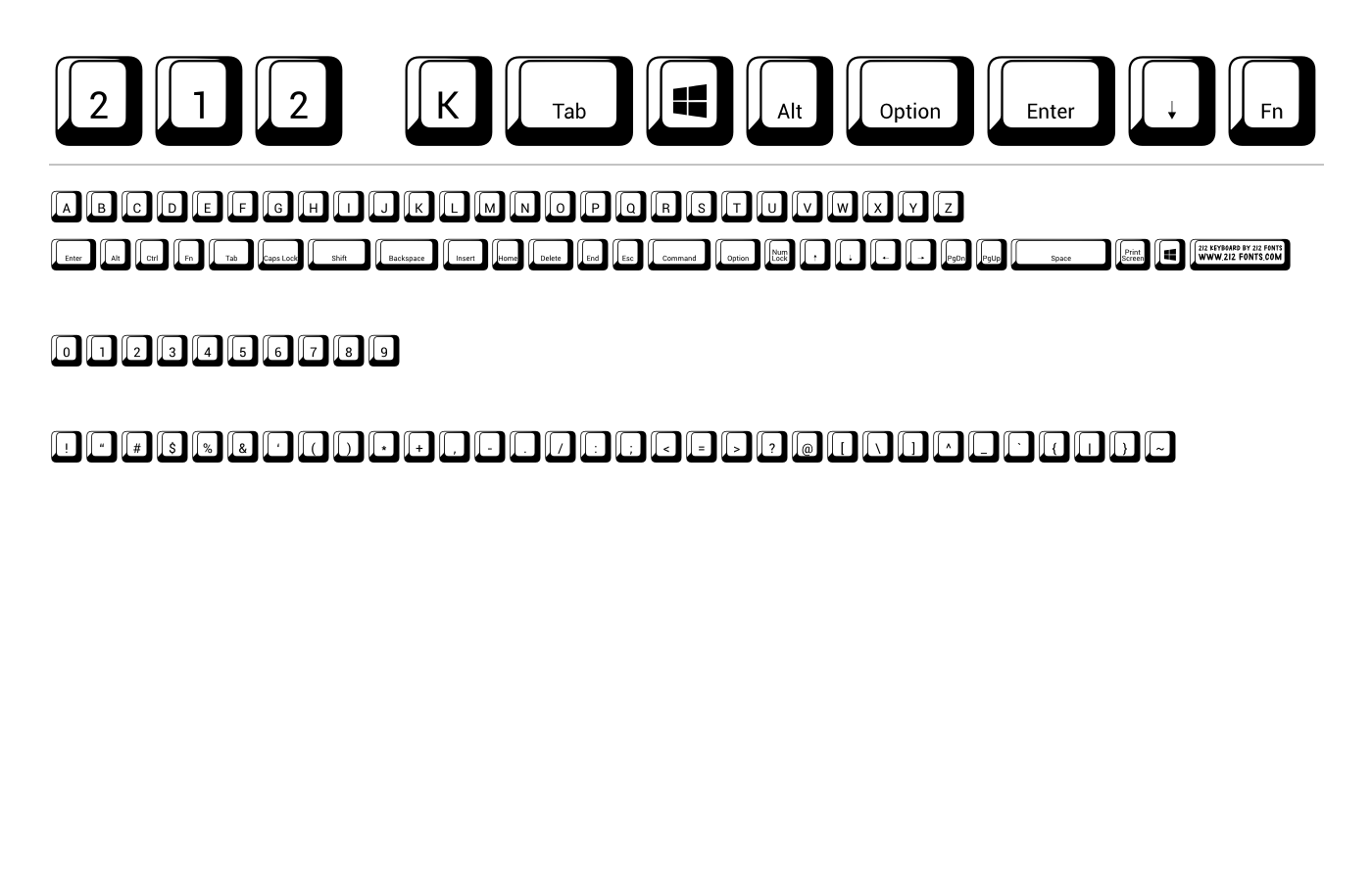
212 Keyboard Font is a playful and unique display typeface that mimics the look of computer keyboard keys, featuring rounded rectangular forms with a slight 3D shading effect. Its monospaced style and clean, simple letterforms create a tech-inspired, modern vibe, making it perfect for projects related to technology, gaming, or retro computer themes. This font works best in eye-catching headlines, logos, or signage where a fun, digital aesthetic is desired.
212 Keyboard Font
About 212 Keyboard Font
| Font family | 212 Keyboard Font |
| Designer | Elizabeth McLain |